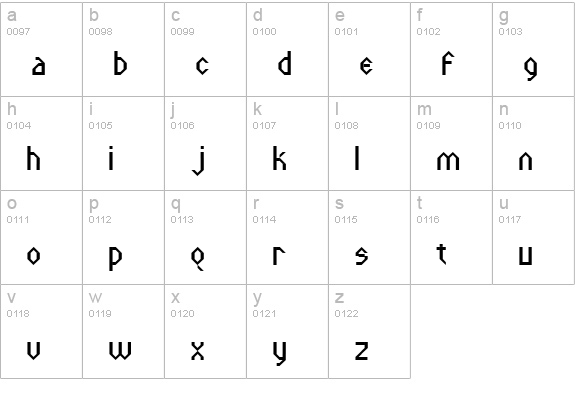
GothicRock Font Details
Introducing GothicRock font, a bold and striking typeface that exudes a sense of mystery and darkness. Its sharp edges and intricate details make it perfect for creating a gothic and edgy look in your designs. The GothicRock font is free to download at FontsMarket.com, allowing you to add a touch of drama to your projects without any cost. Whether you're working on a poster, logo, or any other design, this font will surely make a bold statement and captivate your audience. Embrace the dark beauty of GothicRock font and unleash your creativity today.